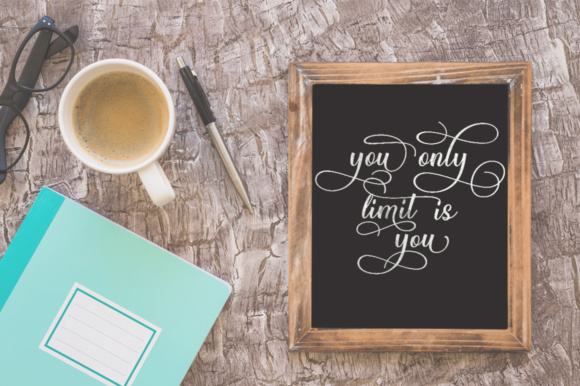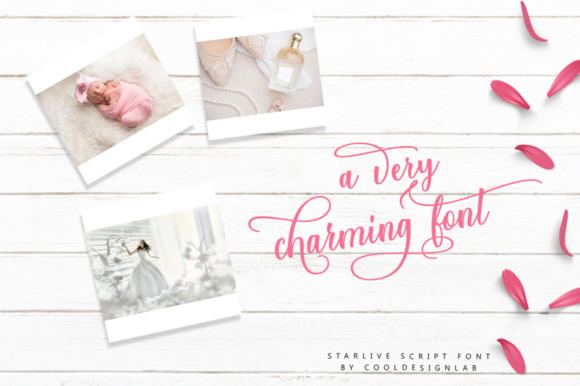
Starlive Script Font
db-ku.com - Script & Handwritten -- The Starlive is a beautiful and interesting calligraphy font. Its little scratches give it a realistic and modern feel.